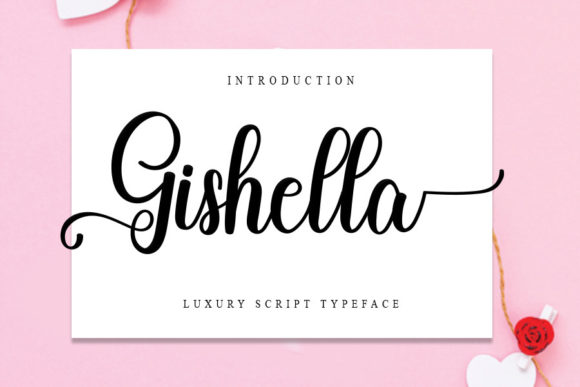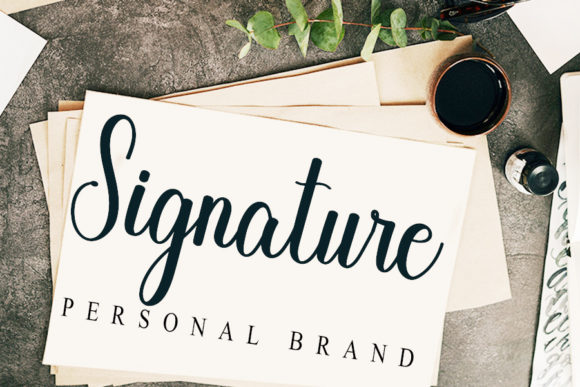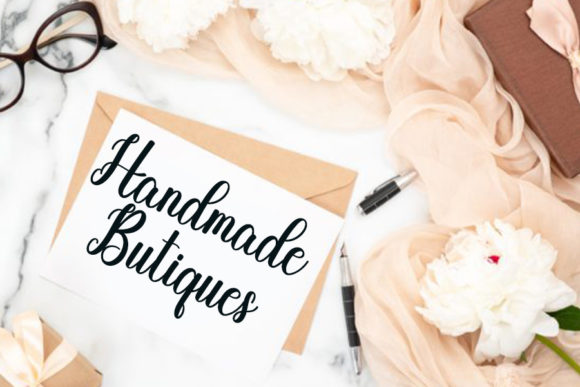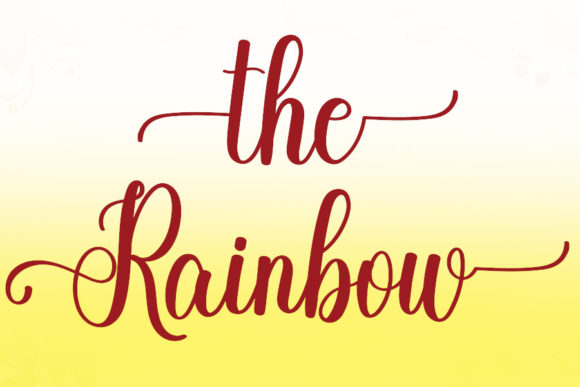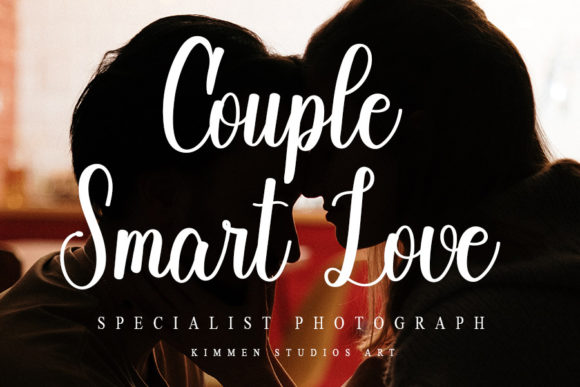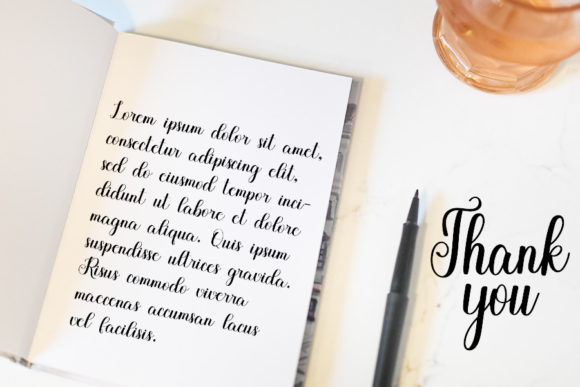
Gishella Font
About Gishella Font
Gishella is a flowing and graceful script font. Fall for its ravishing style and use it to create gorgeous wedding invitations, beautiful stationary art, eye-catching social media posts, and much more!